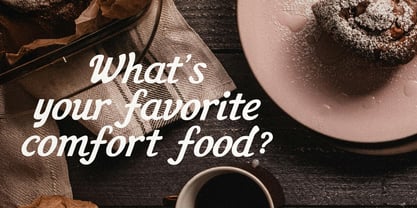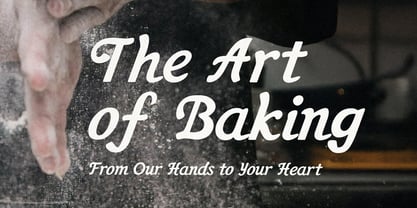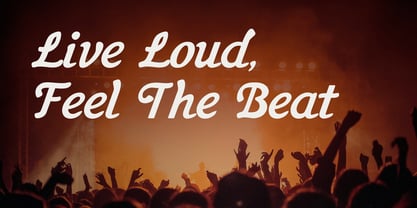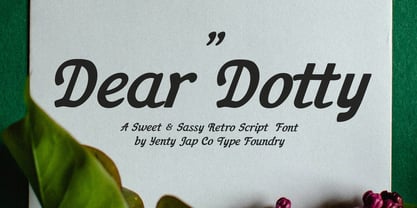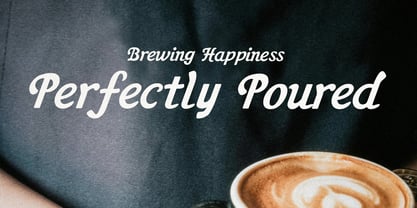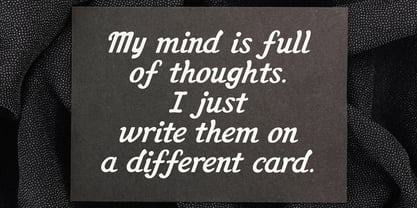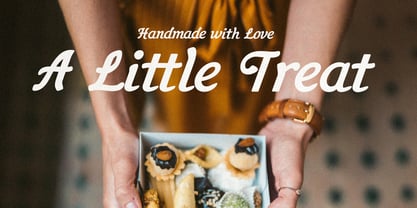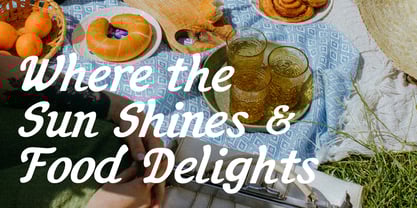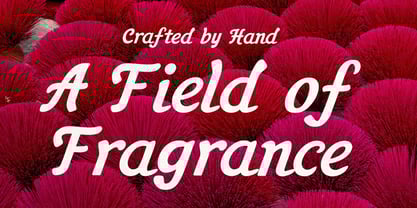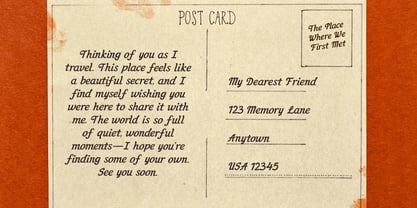
YJC Dear Dotty
by Yenty Jap Co
The YJC Dear Dotty Font Family was designed by Yenty Jap and published by Yenty Jap Co. YJC Dear Dotty contains 1 styles. More about this family
Bring retro charm and confident style to your next project with YJC Dear Dotty, a bold script-inspired display font crafted with character and versatility in mind. With its strong curves, smooth flow, and nostalgic details, this typeface is perfect for creating standout logos, packaging, signage, posters, and merchandise that need a touch of vintage soul. Whether you’re designing for a coffee shop, craft brewery, retro diner, sports team, festival poster, or boutique brand, YJC Dear Dotty gives your words a bold presence that captures attention and leaves a lasting impression. Features: • Full uppercase alphabet • Lowercase alphabet • Numbers & punctuation • Multilingual Support • Smooth vintage-inspired strokes • Perfectly suited for logos, packaging, apparel, and signage Perfect For: • Food & beverage branding (coffee cups, menus, neon diner signs) • Music & entertainment (concert posters, vinyl covers, festival banners) • Sports & lifestyle (team logos, jerseys, streetwear) • Retro/nostalgic projects (road trip posters, motel signs, classic cars) • Packaging & retail (labels, tote bags, handmade goods) Bring your words to life with the bold, timeless energy of YJC Dear Dotty — designed to make every project unforgettable.